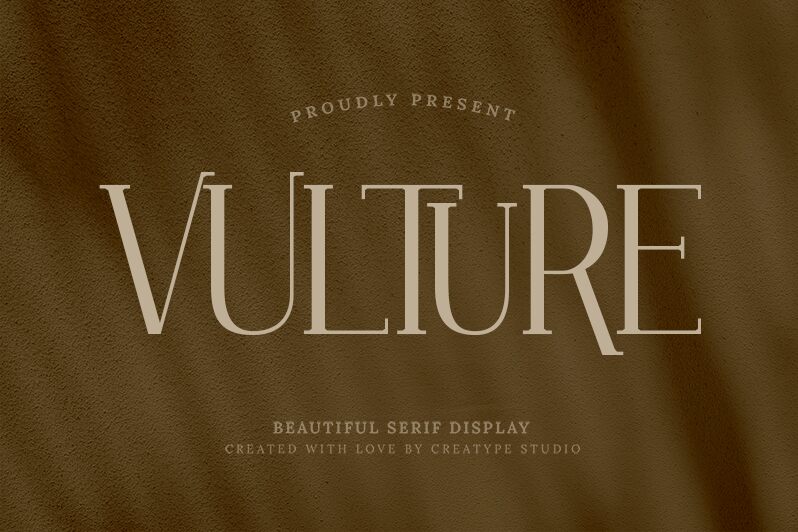
Vulture
Vulture font by Creatype Studio is an elegant and sophisticated modern serif with refined curves. Its editorial style and professional appearance make it a versatile choice for projects that require a touch of class and readability.